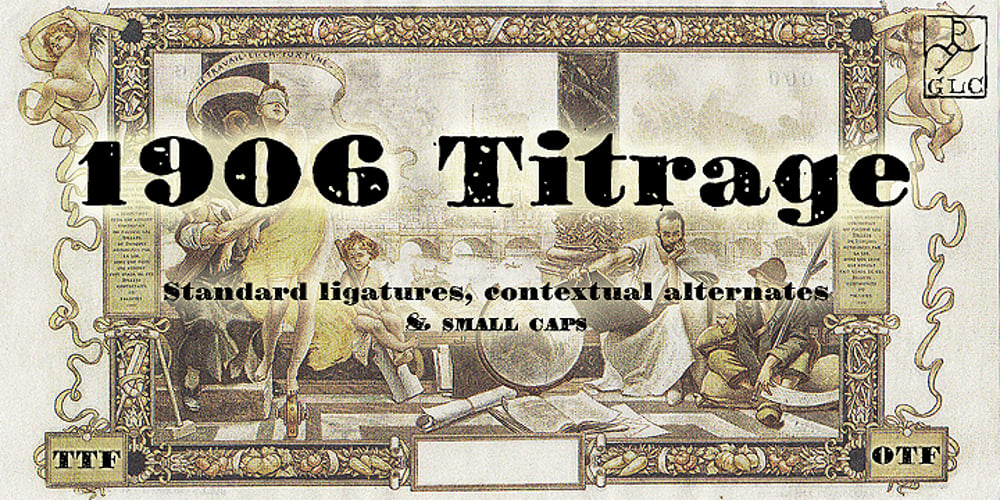
1906 Titrage Font Family was designed by published by GLC. 1906 Titrage contains 1 styles and family package options. We have created this family as a complement to 1906 French News since the two type families were commonly in use in the same publications, including newspapers, popular books, calendars, almanacs and posters. This font, as its name suggests, was mainly used for titlings and subtitles. Small caps, included in the single file of the TTF and OTF versions, are added as a separate file in the MacTT version.